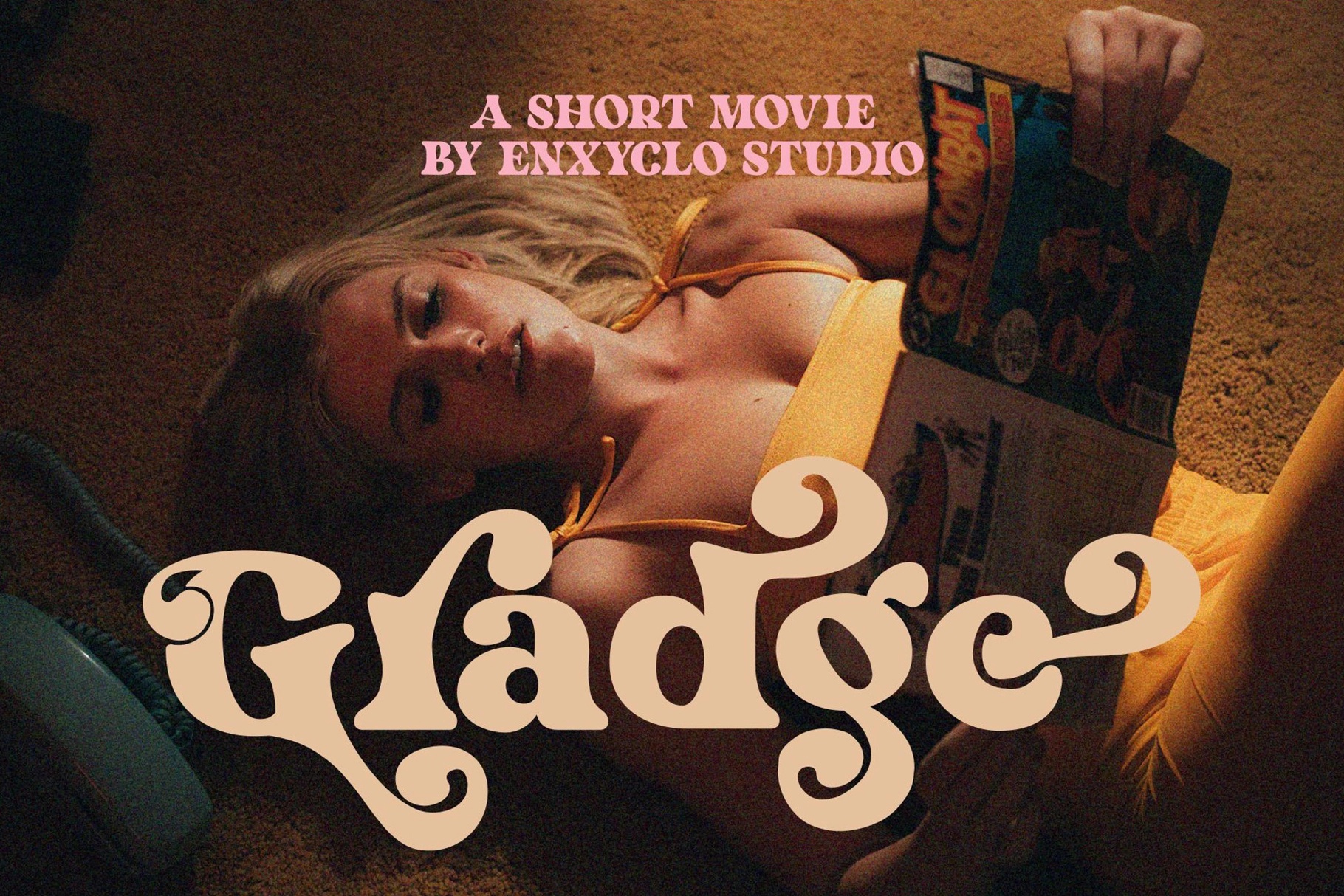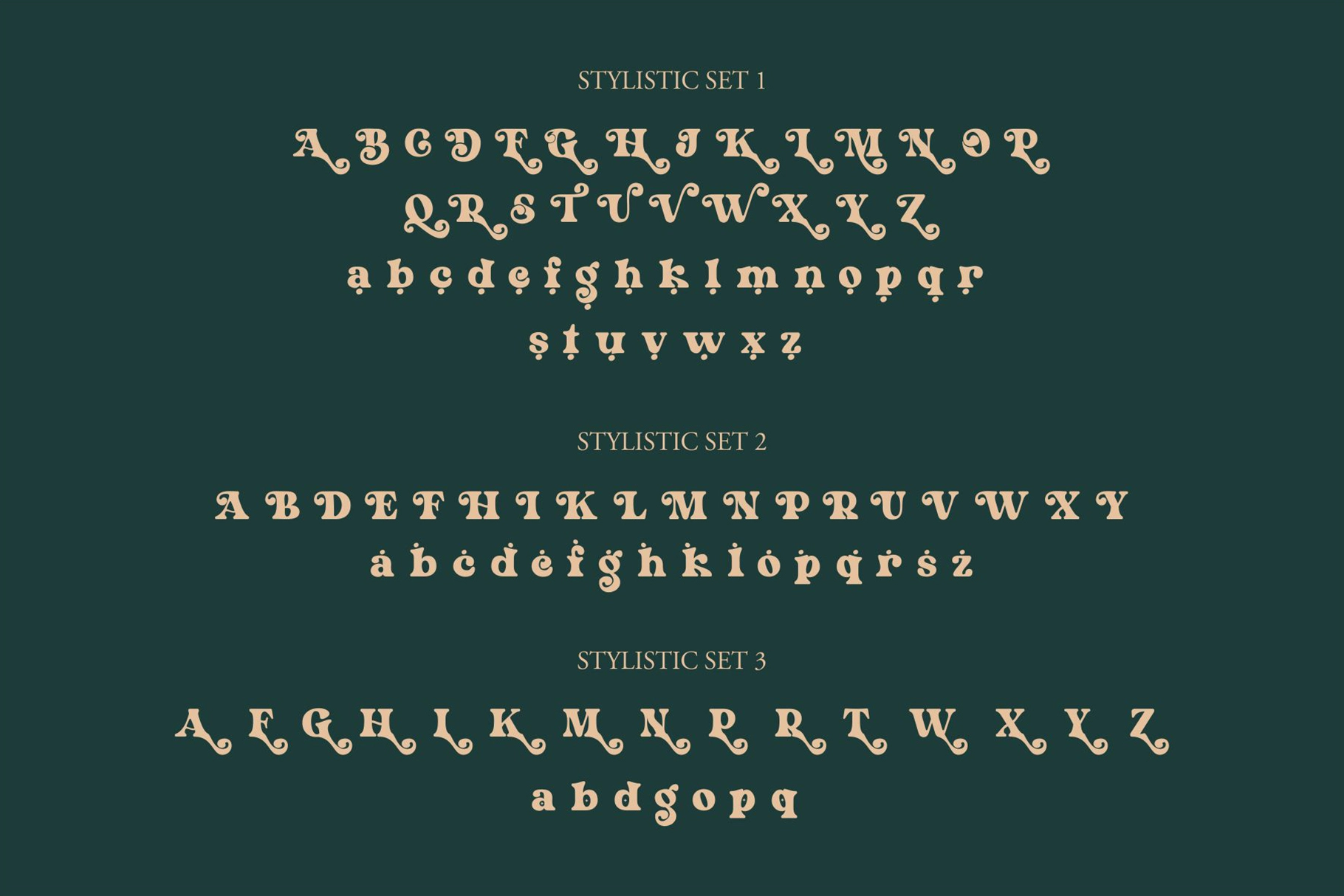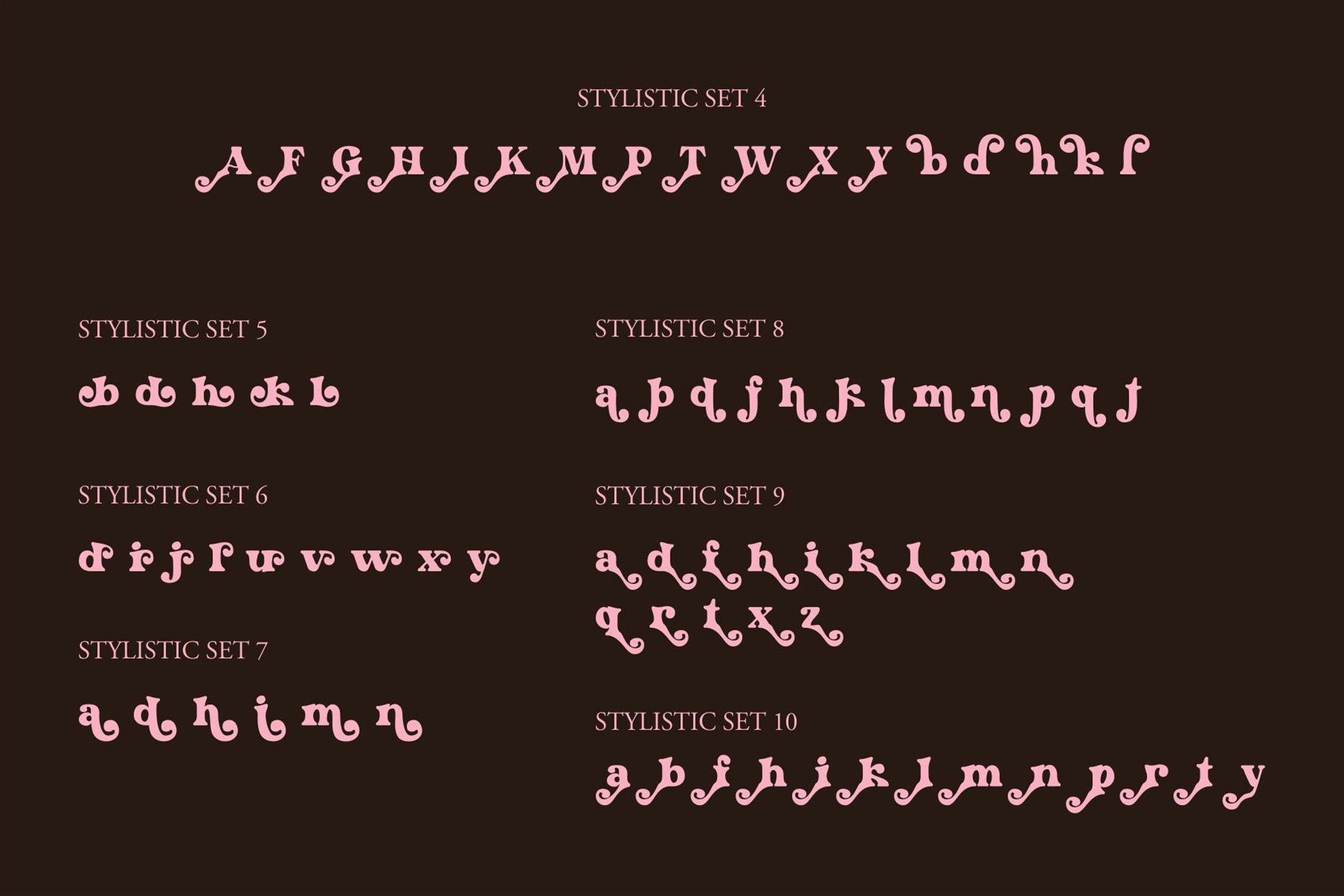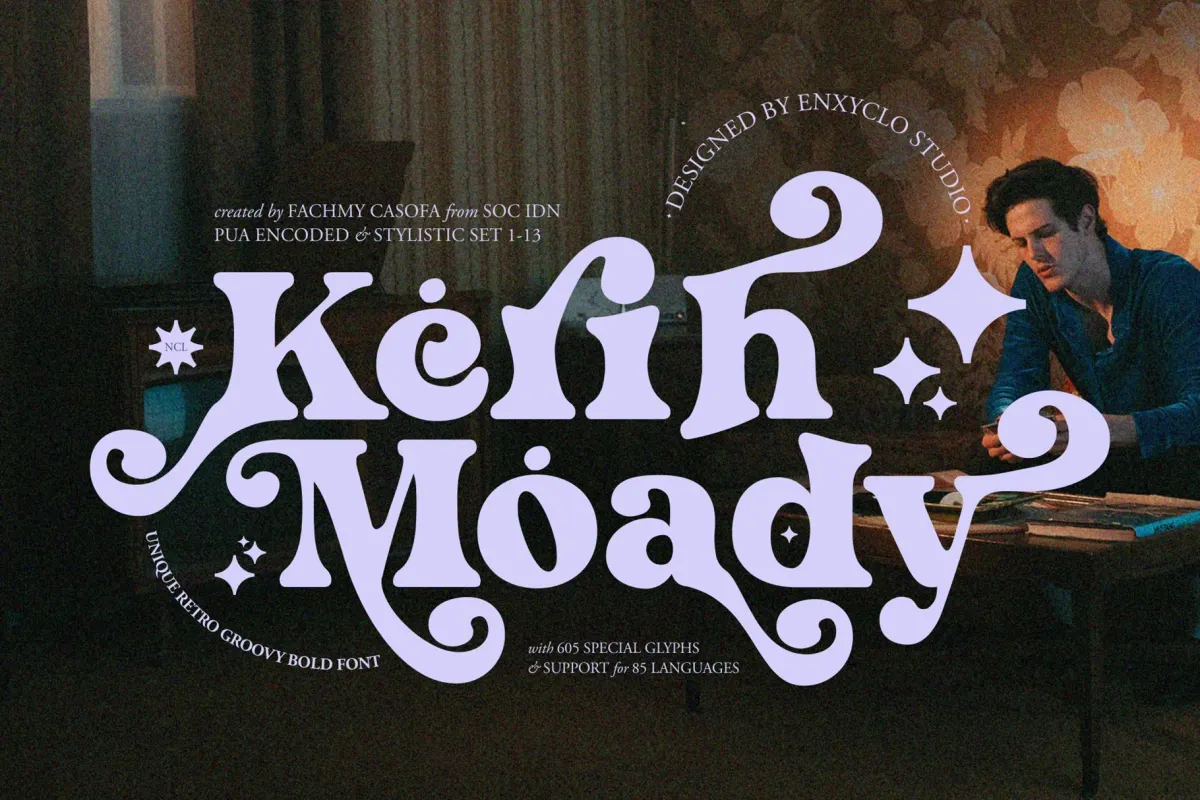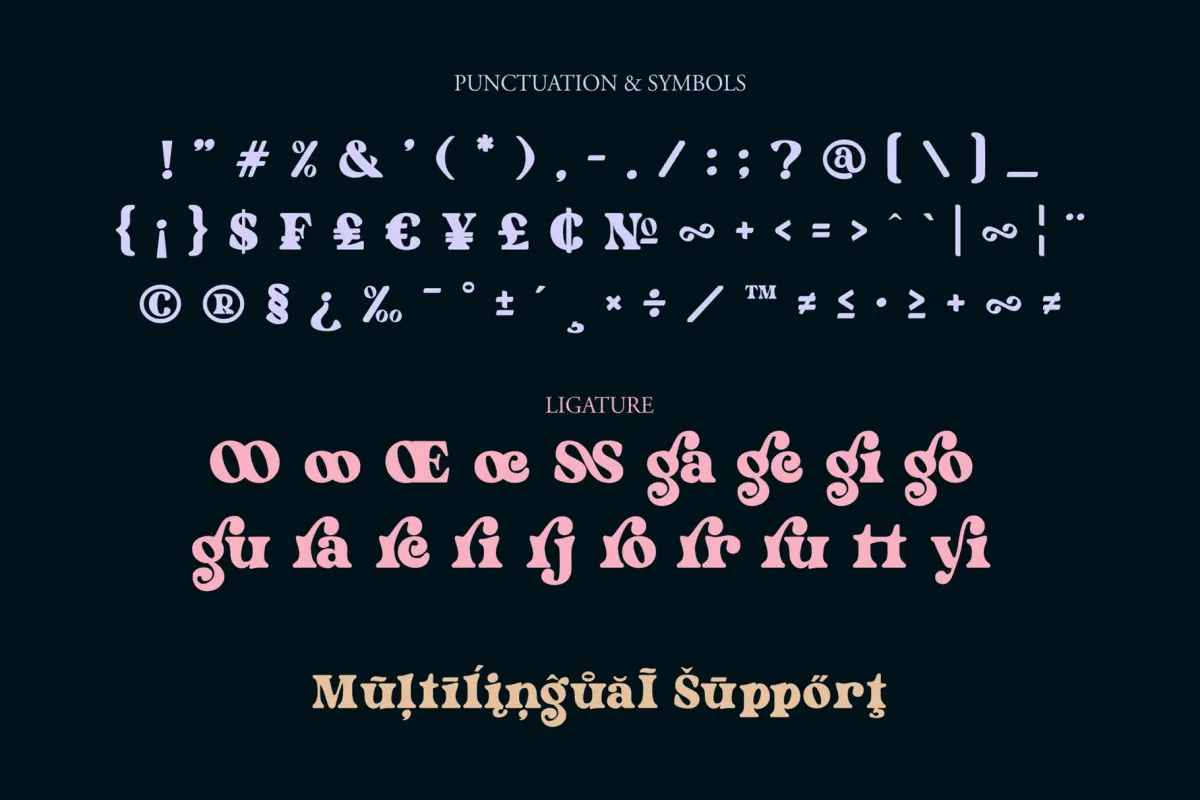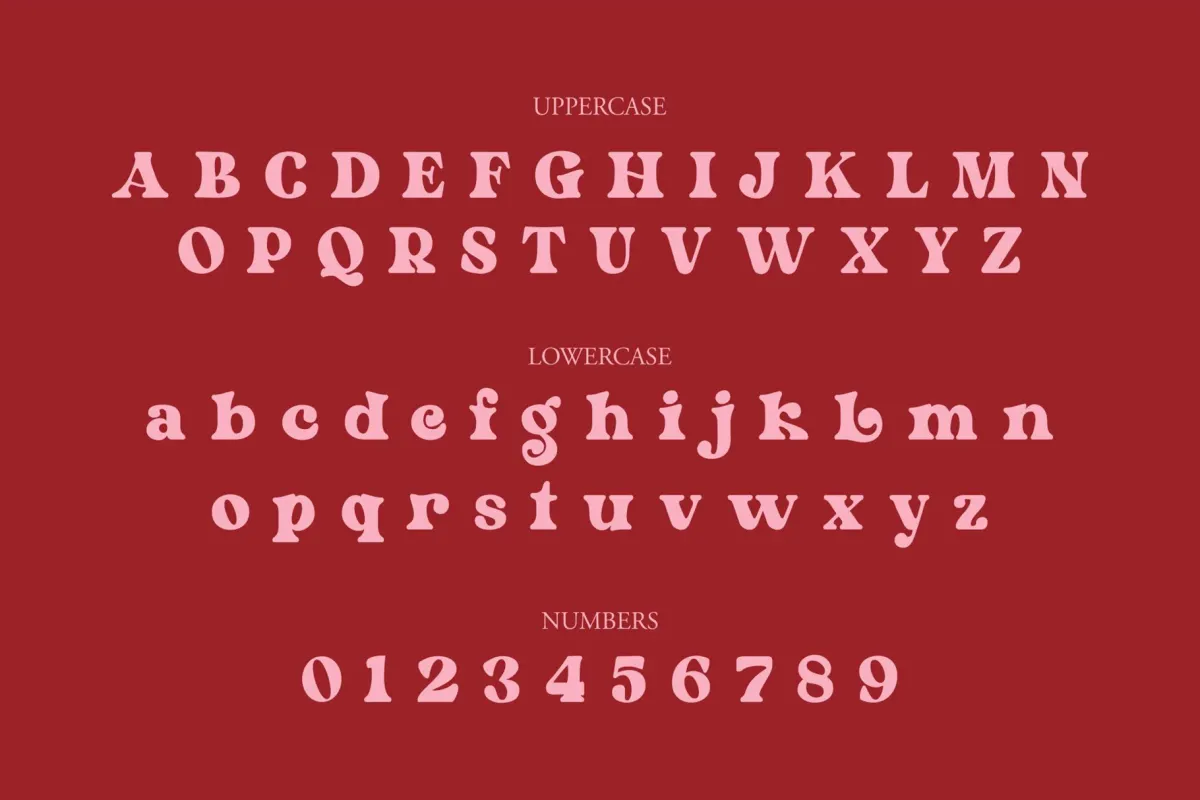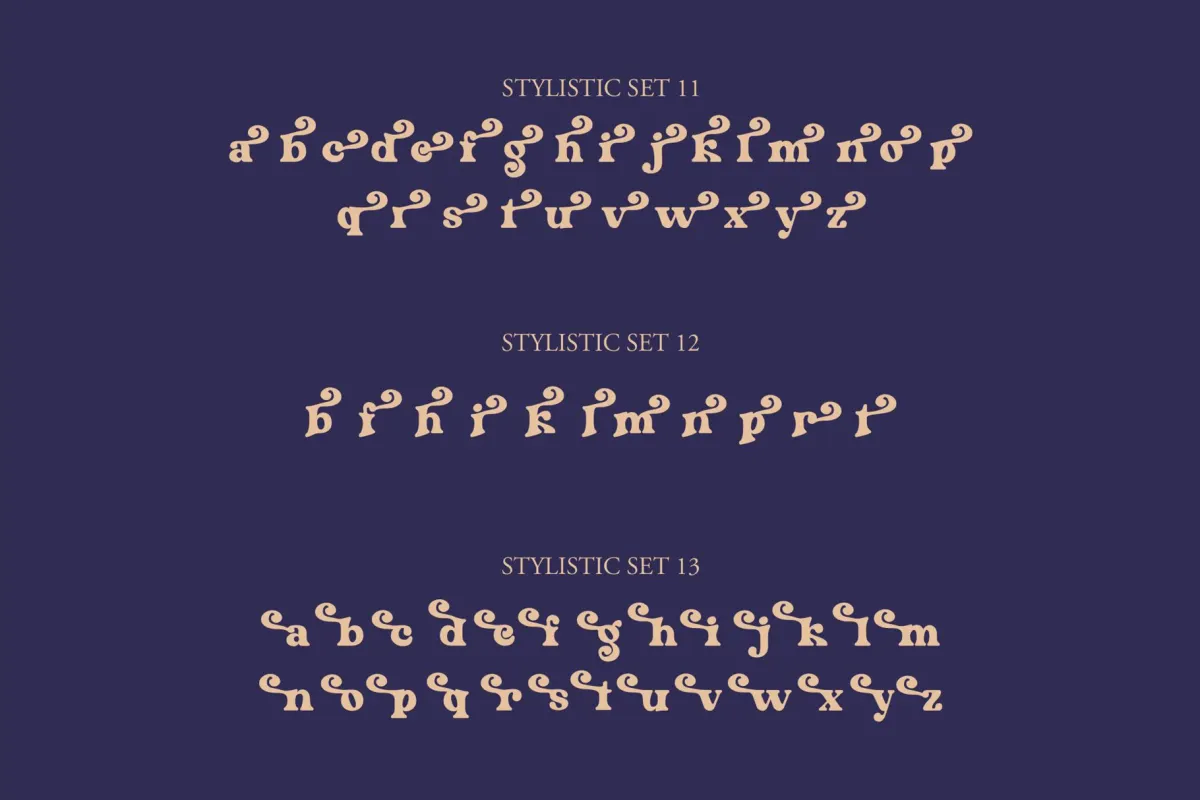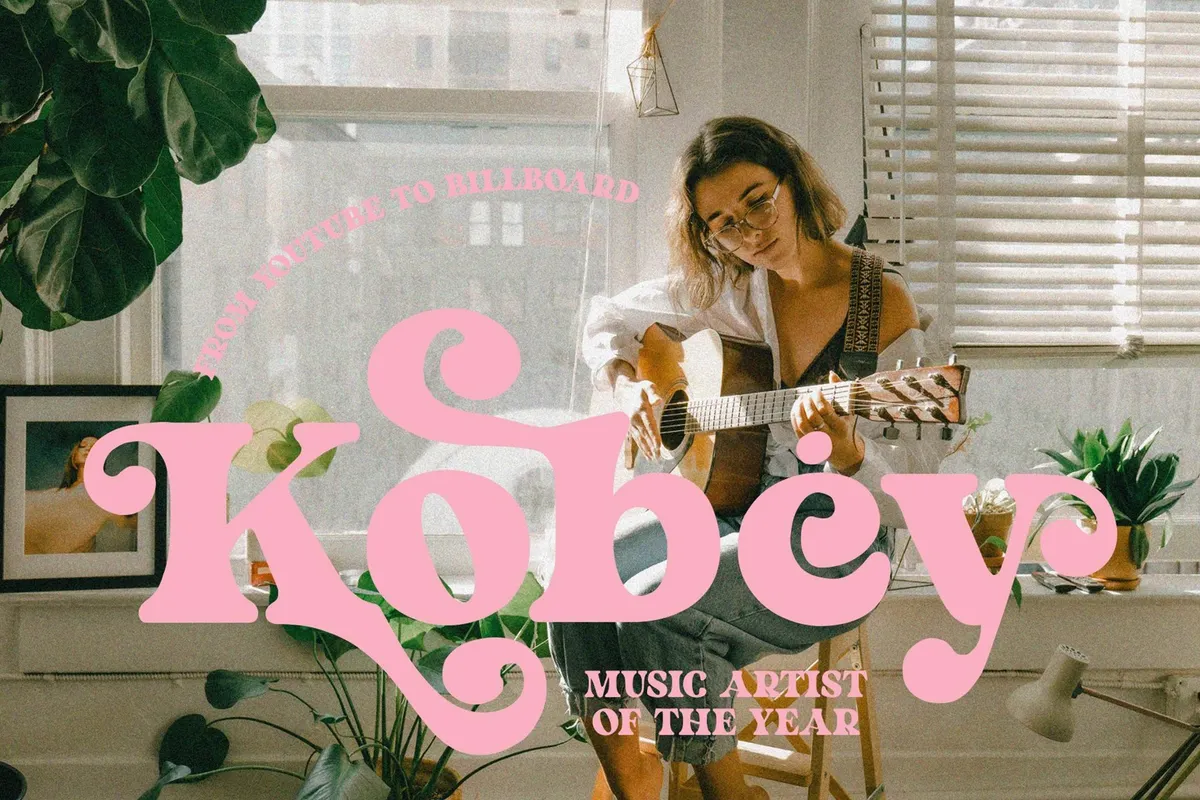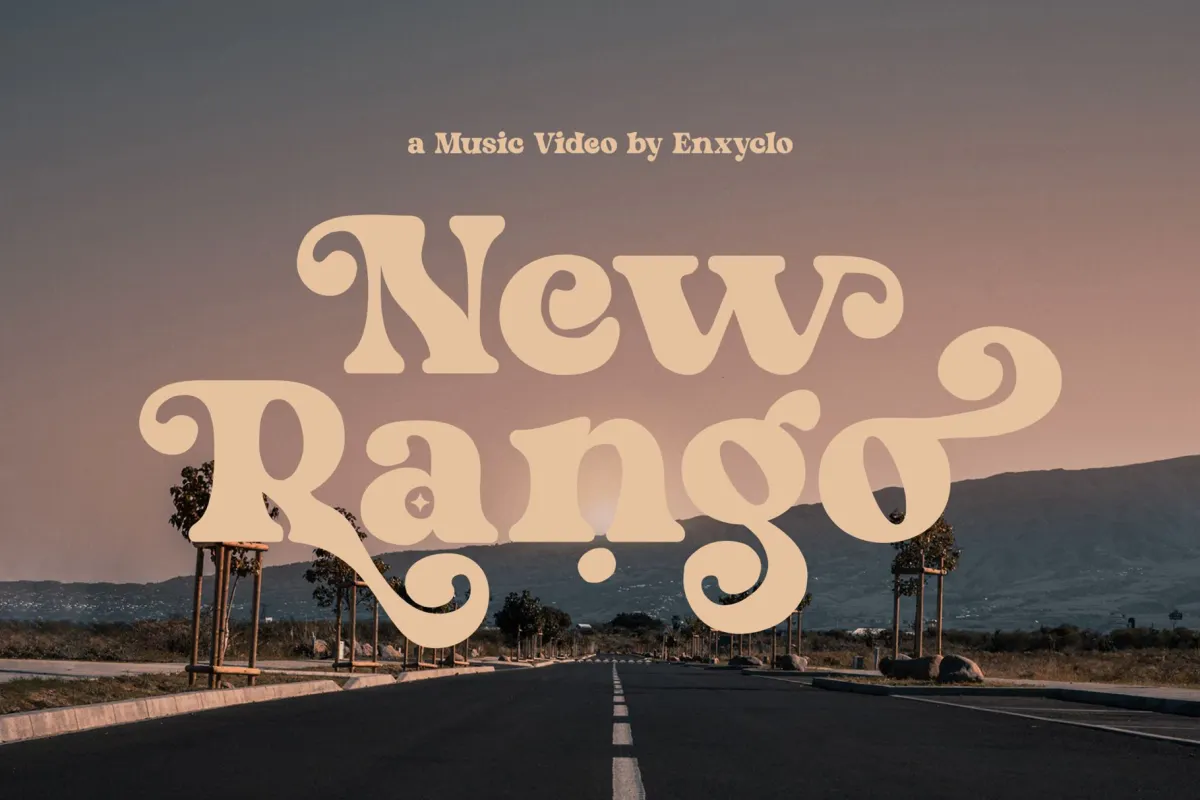
Kerih Moady - Retro Groovy Display Font
Kerih Moady – Retro Groovy Display Font is a bold retro-inspired typeface that captures the playful spirit of classic groovy typography. With its rounded curves, expressive shapes, and strong visual rhythm, Kerih Moady brings a nostalgic yet modern personality to contemporary design. The font’s vibrant character and dynamic letterforms make it perfect for creating eye-catching headlines and distinctive branding.
Designed to shine in large display sizes while remaining readable in smaller layouts, Kerih Moady is ideal for posters, magazines, websites, branding, logos, and creative editorial projects. Its extensive glyph set, stylistic variations, and ligatures give designers the freedom to craft unique and expressive typographic compositions with a retro flair.
• 605 Glyphs
• Special Ligatures
• Stylistic Set 1–13
• Uppercase & Lowercase Characters
• Numerals, Punctuation & Symbols
• Retro Groovy Display Style